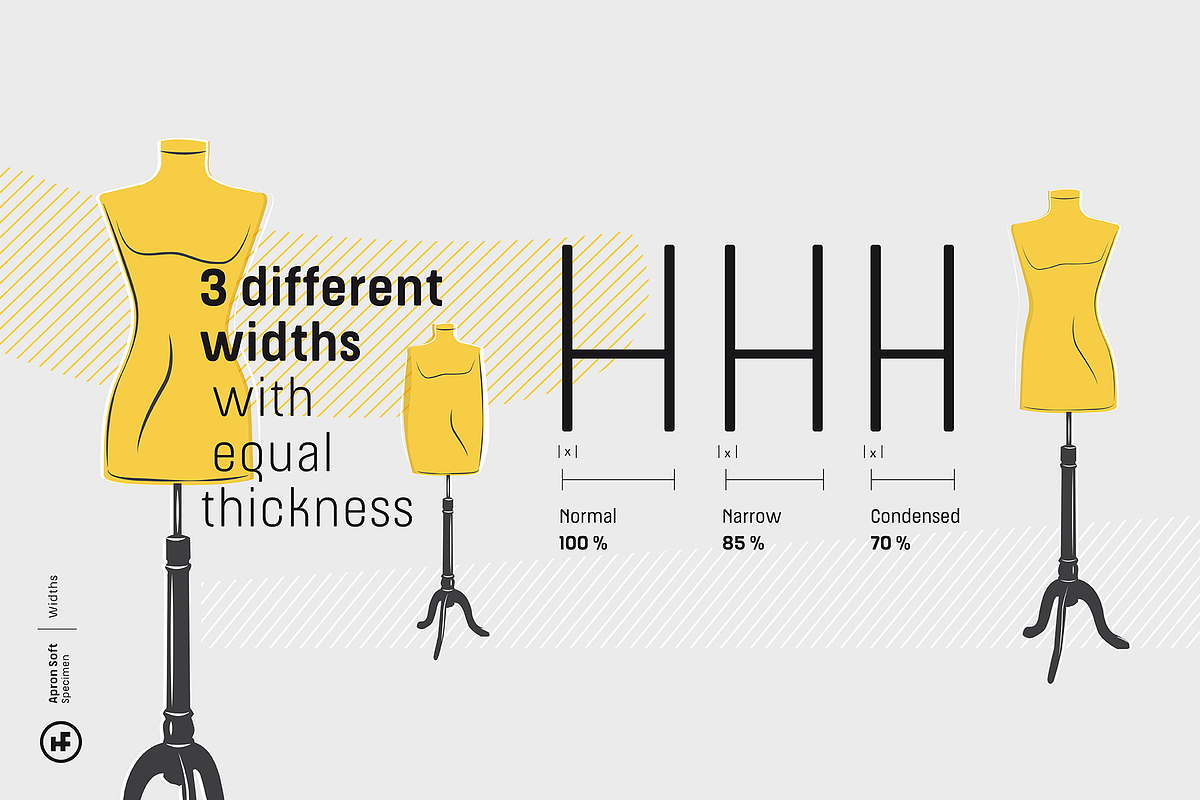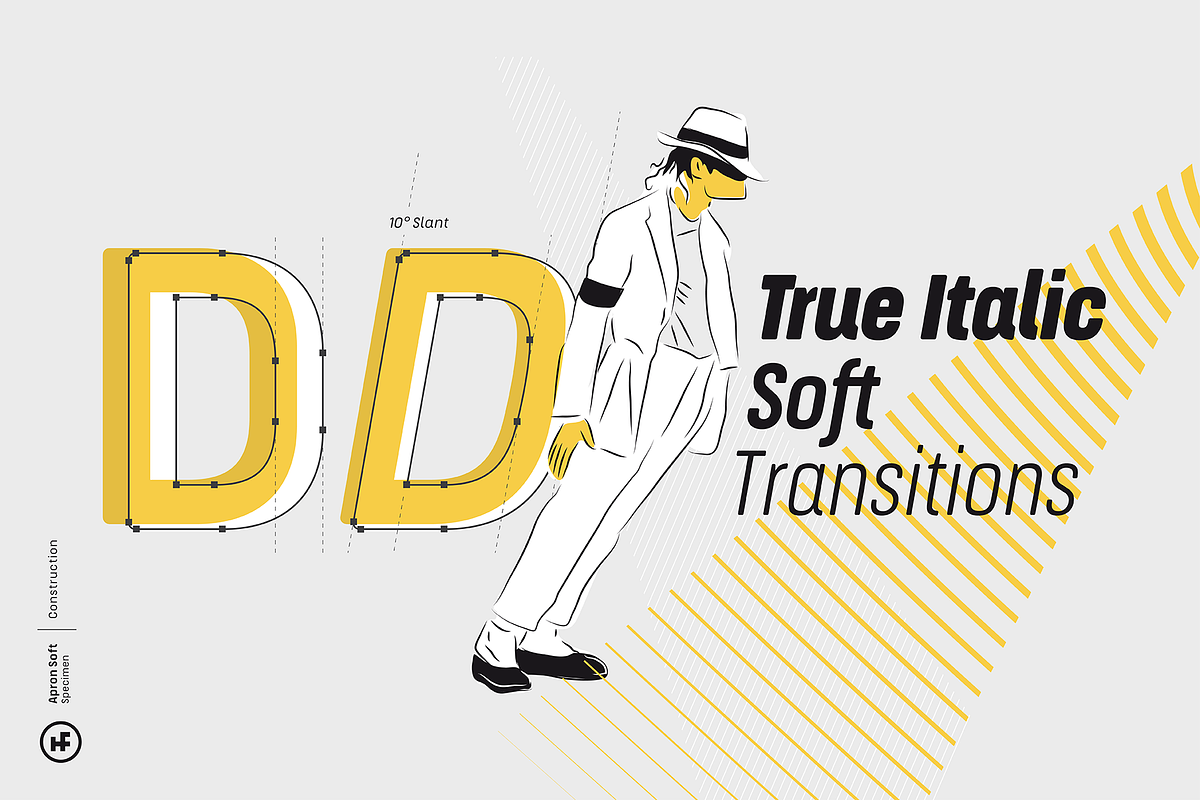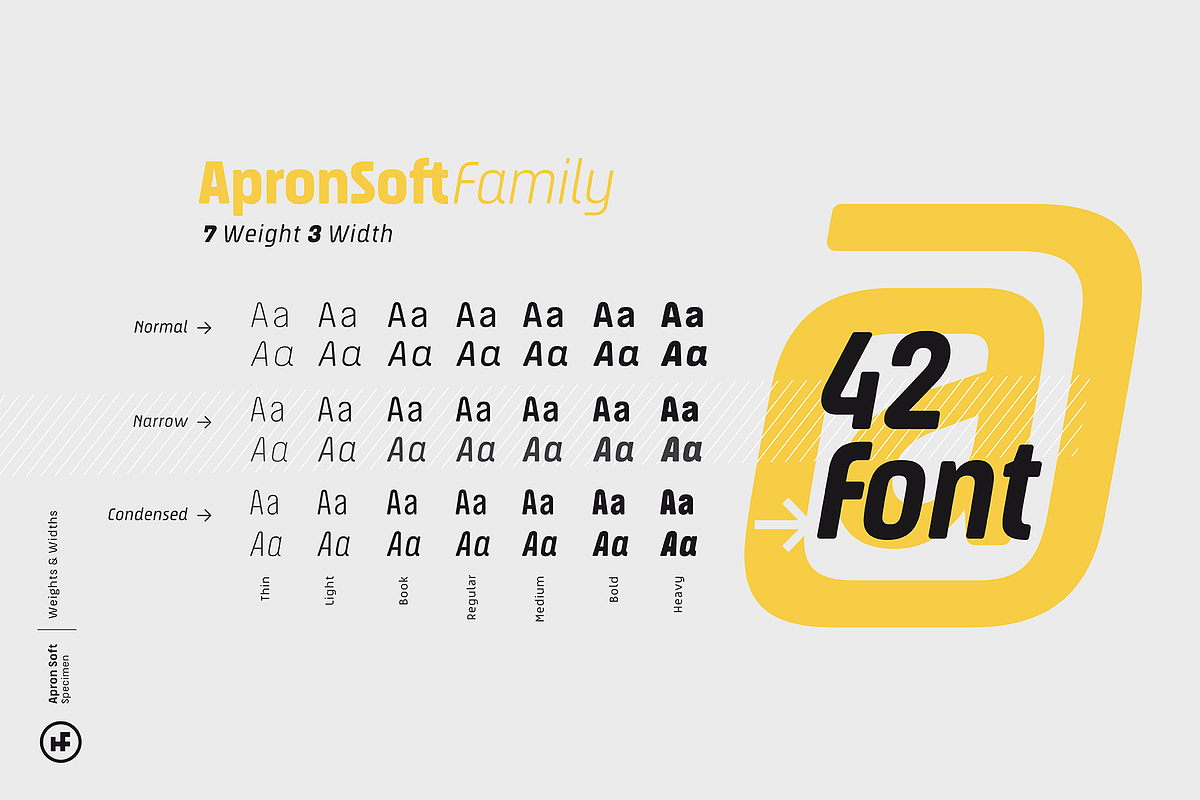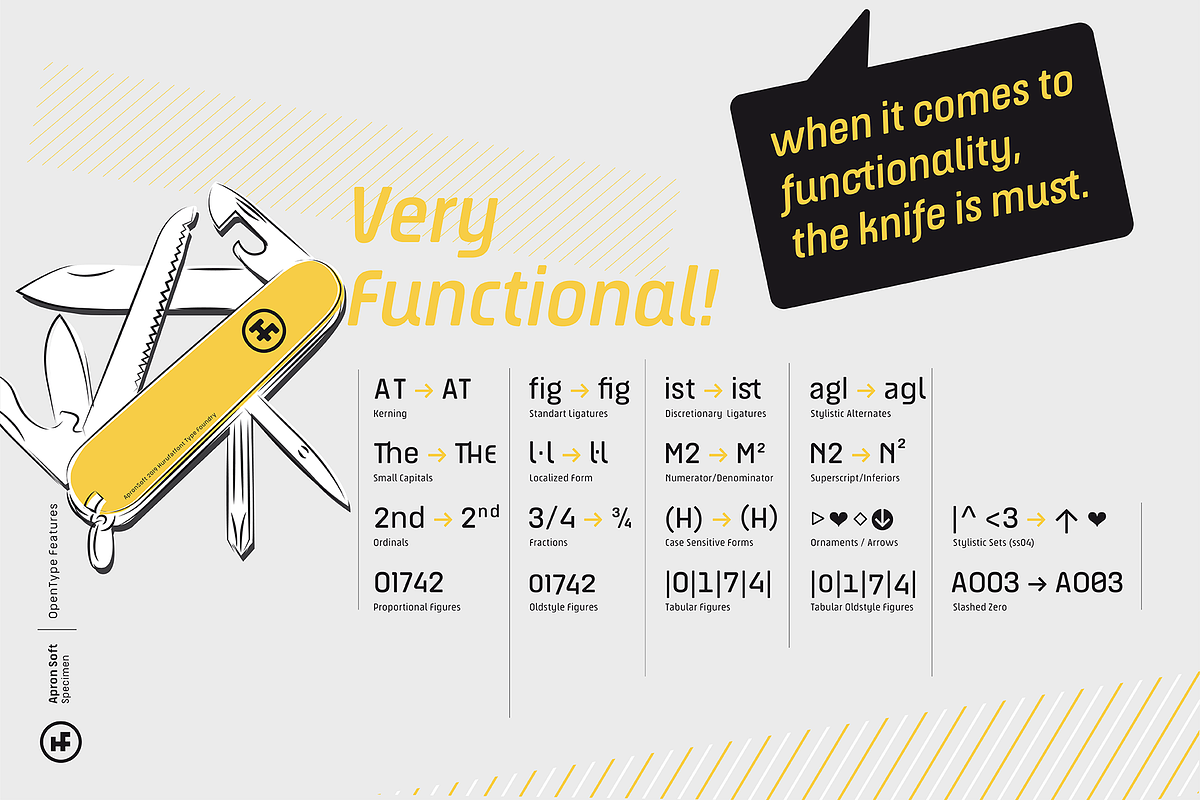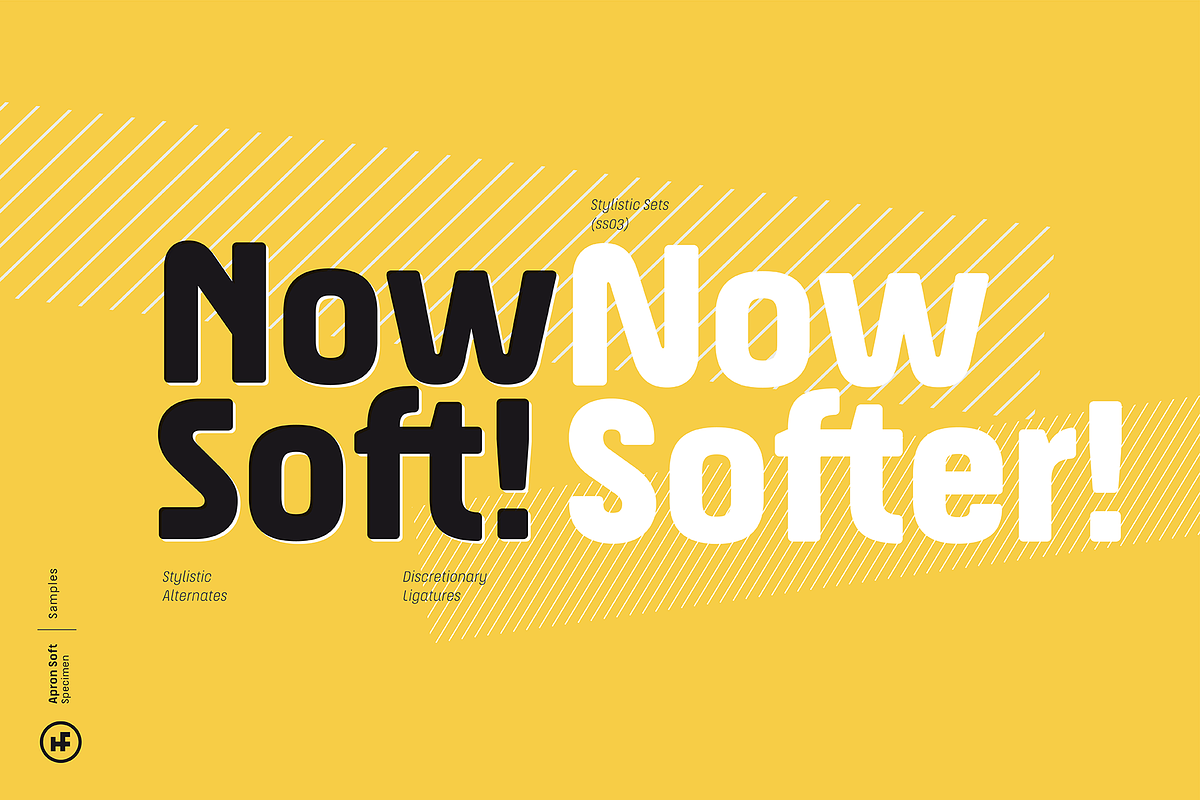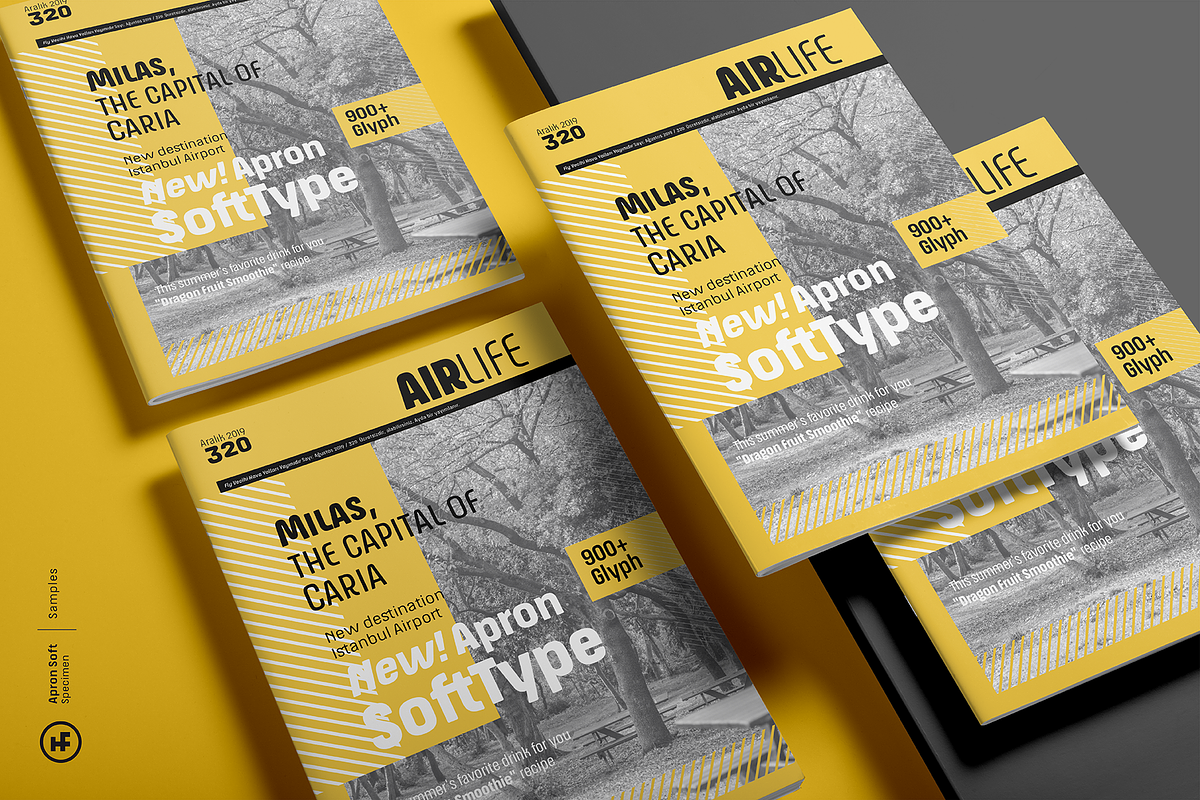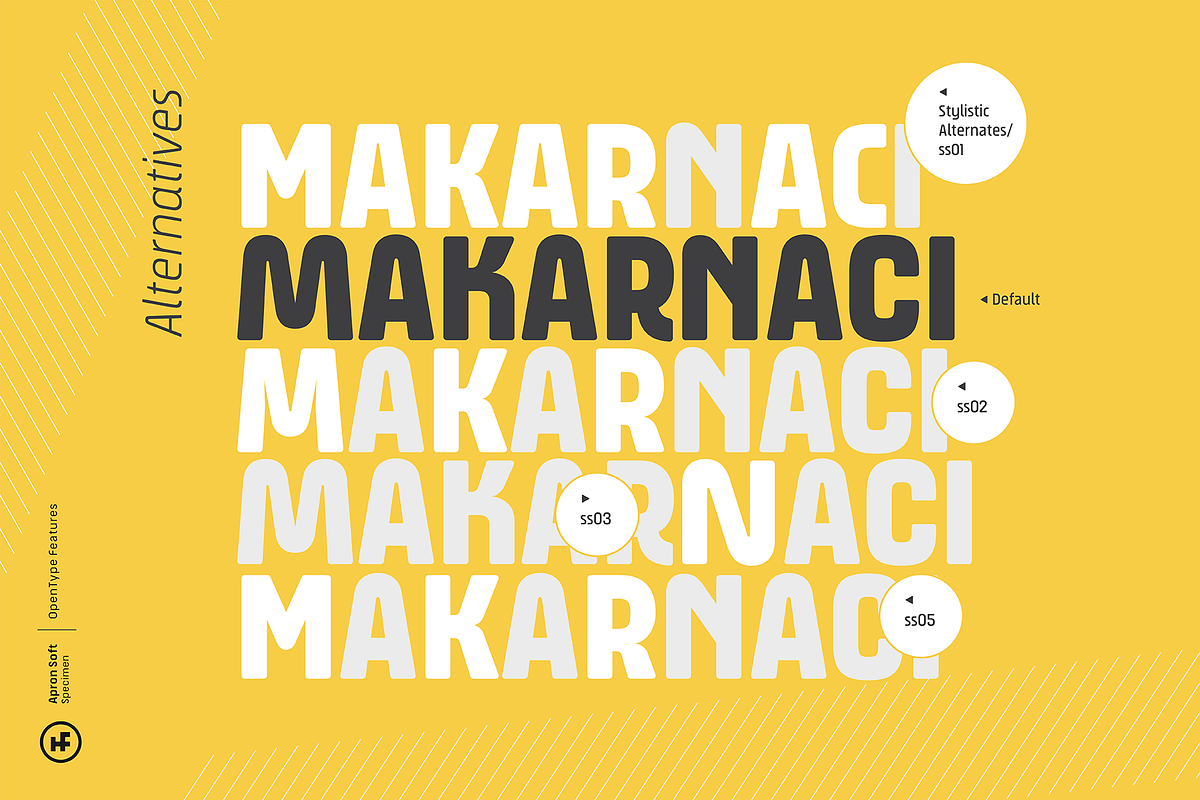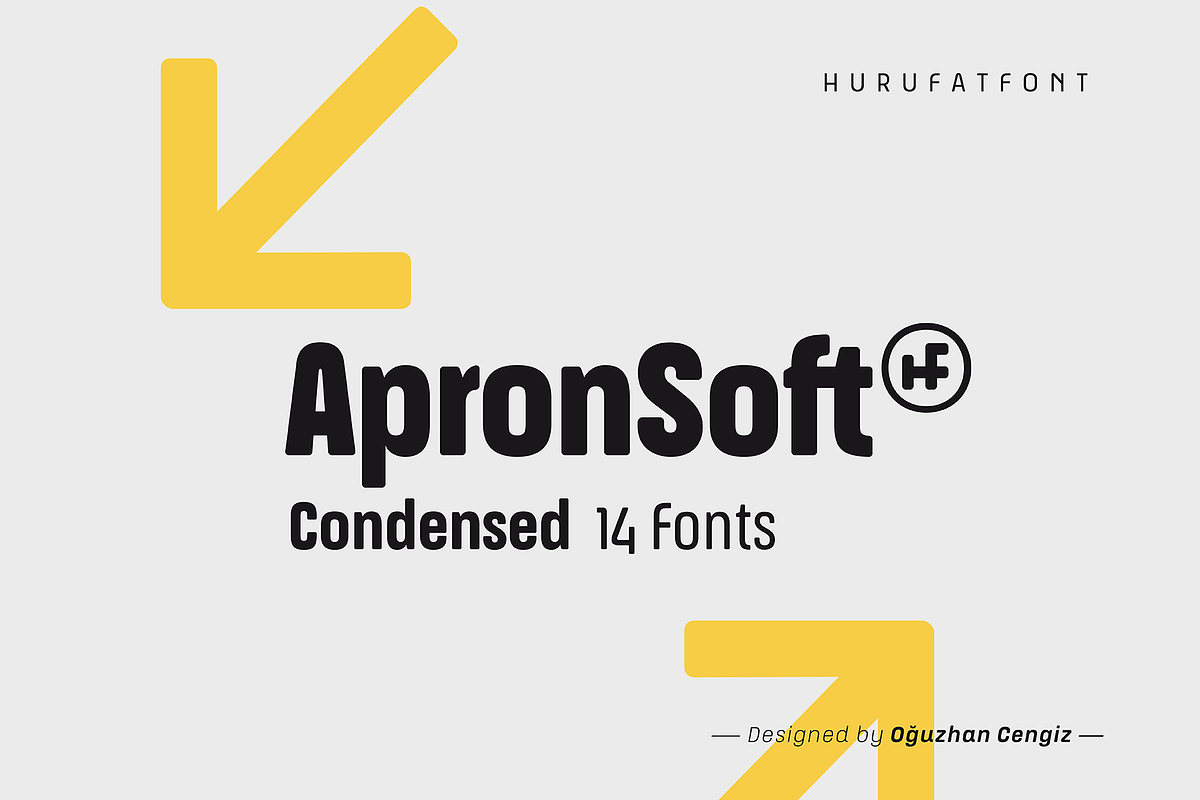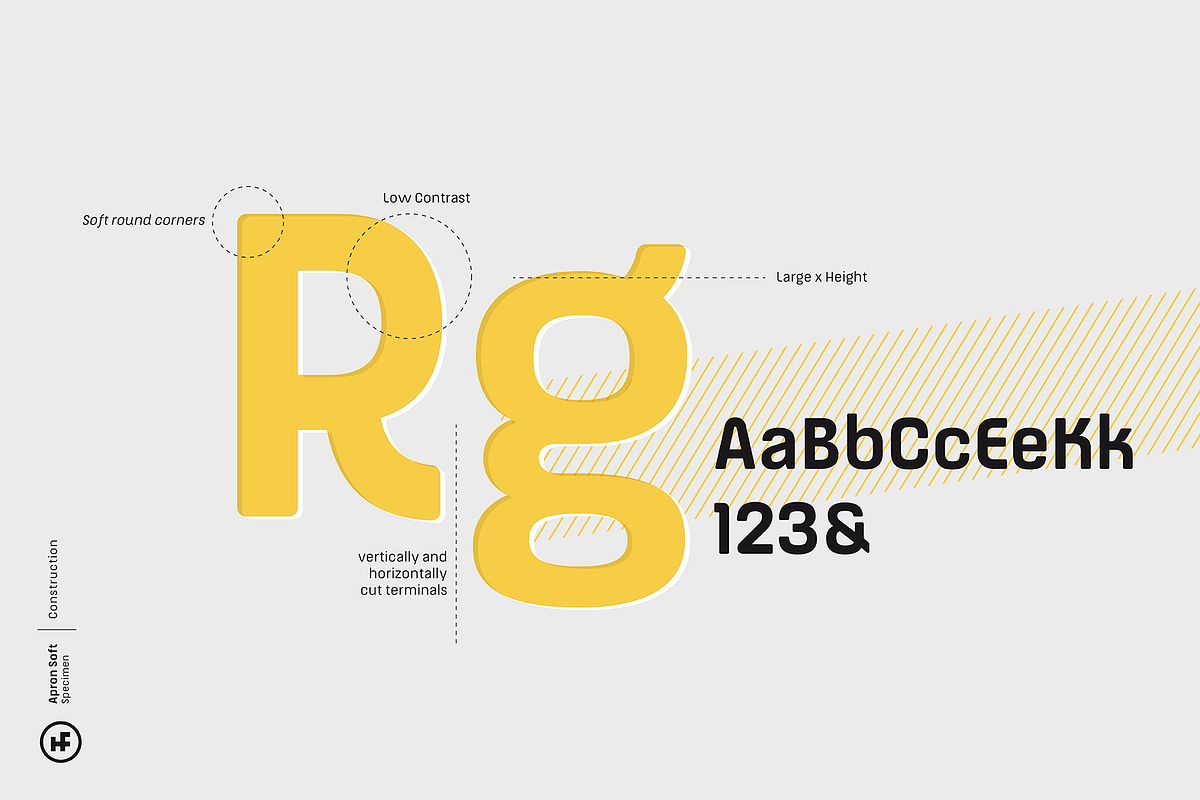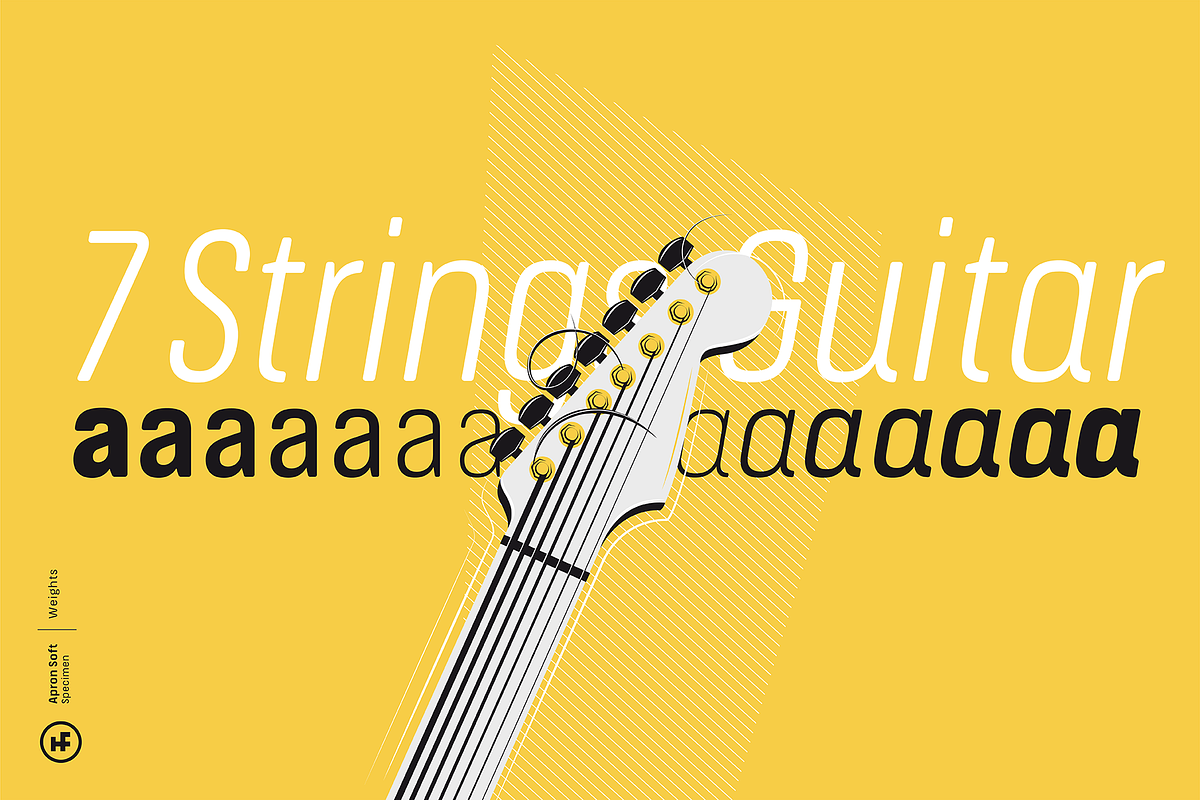
Apron Soft Condensed
The genesis of ApronSoft font type family is inspired by soft-vertical structure of airplane window. On the other hand ApronSoft is making a reference to technological design mentality of early 2000's. In short texts it has stable view and also humanist effect. Very suitable for mobile apps, web designs, sportive & technological product packs and ads designs. Especially Narrow Bold and Condensed Bold Italic weights have fluid and strong expression for striking headlines. User friendly ApronSoft serves rich opentype properties; small capitals, alternative letters (a, c, e, g, k, l, q, s, y, A, C, G, K, M, N, R, S), stylistic sets, standart and optional ligatures, oldstyle figures, tabular linings, arrows, bullets and wide money currencies, fractions and math symbols. With reduced file size, it’s softer now!